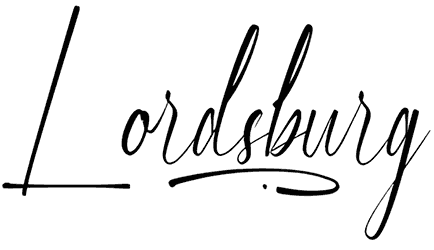
Lordsburg Font
The hand-drawn, thin, and difficult-to-read appearance of Lordsburg makes it an excellent choice for a wide variety of fancy artworks. Lordsburg is currently in first place, even though it doesn’t have any numbers or standard punctuation.